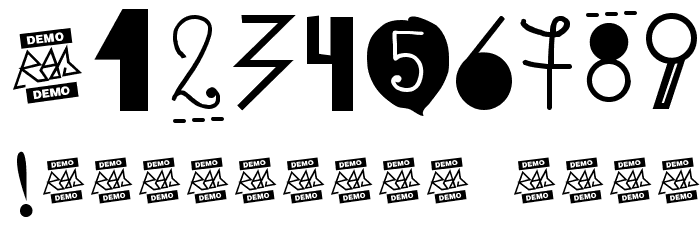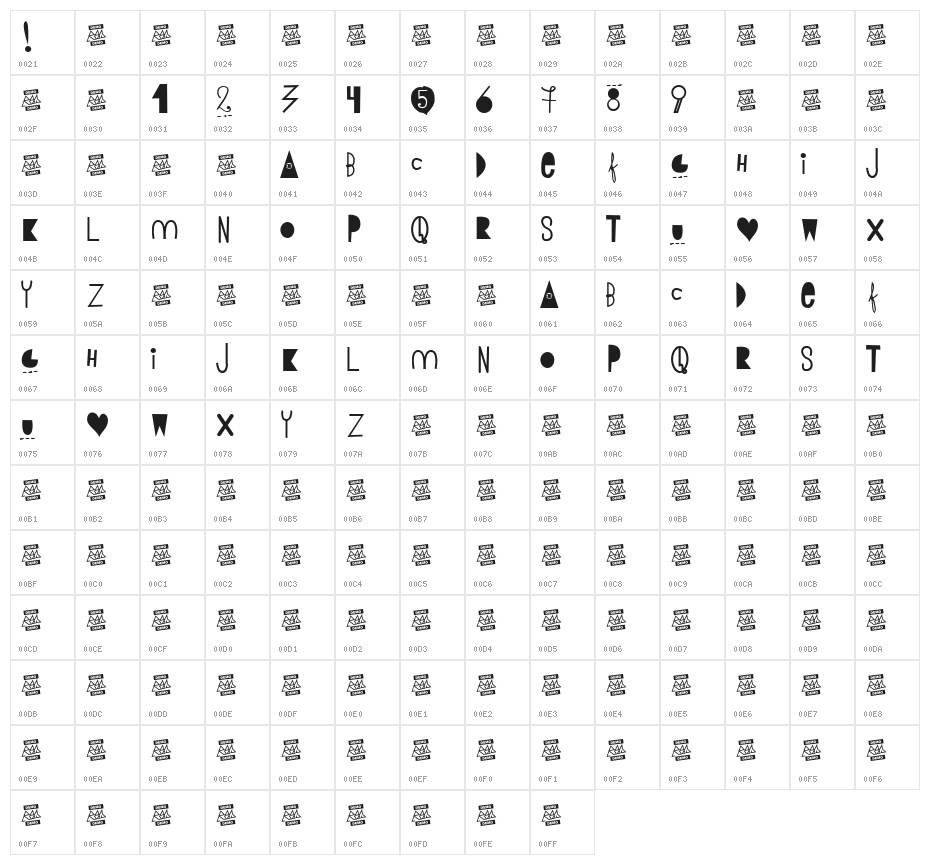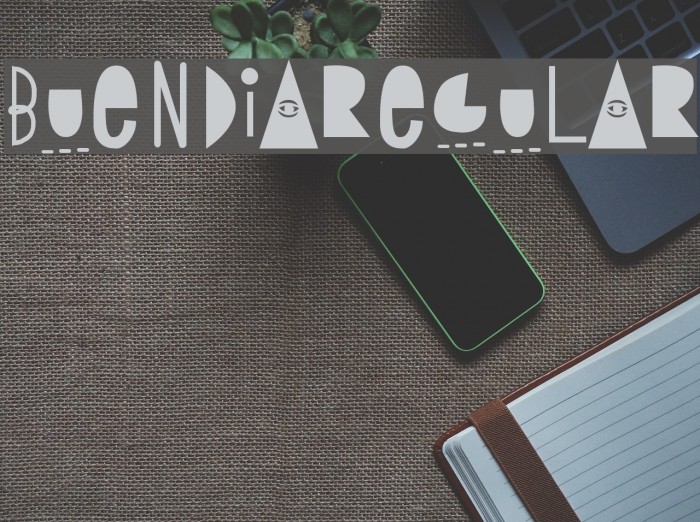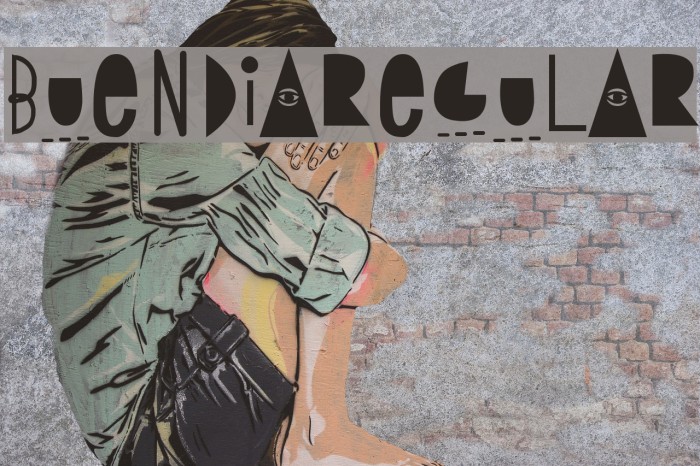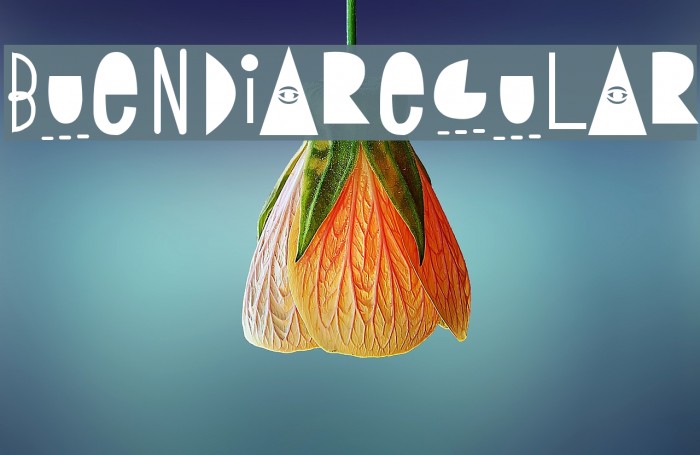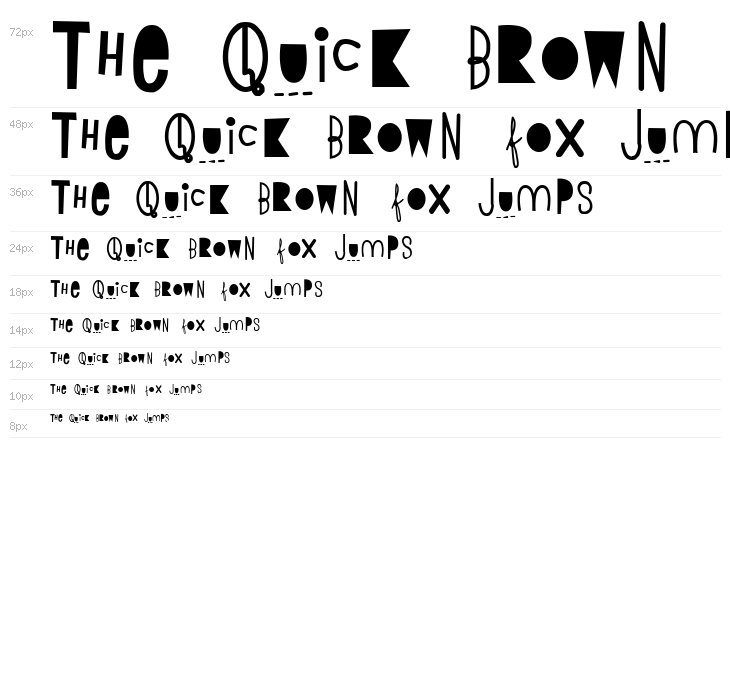
BUEN DIARegular Font
BUEN DIARegular Description
This font features a playful and eclectic design, incorporating a mix of geometric shapes and whimsical elements. The uppercase letters are bold and varied, with some characters like 'A' and 'V' incorporating unique symbols such as an eye or a heart. The lowercase letters maintain a quirky style, with some characters having extended lines or loops. Numbers are equally distinctive, with a mix of angular and curved forms. Special characters like the exclamation mark and ampersand are creatively styled, adding to the font's overall decorative appeal. This font is ideal for projects that require a bold and artistic touch.
| Proposed Projects | Ideal for creative projects such as posters, album covers, and branding materials that require a bold and artistic touch. |